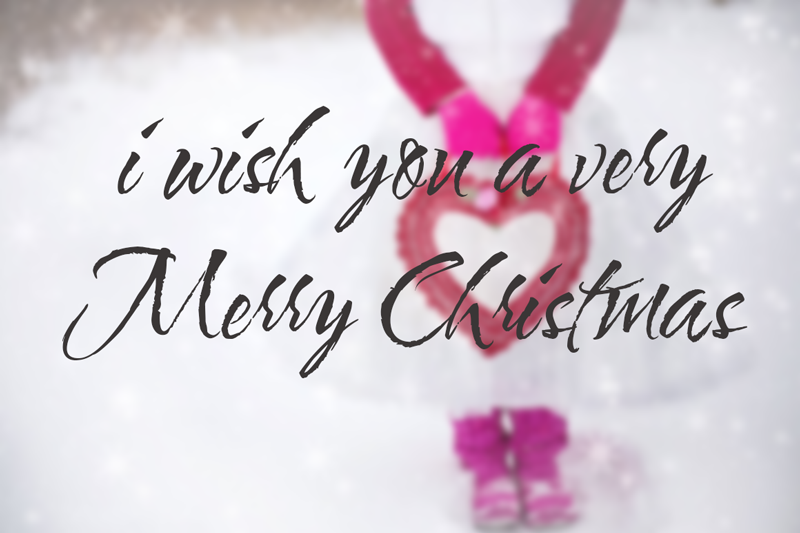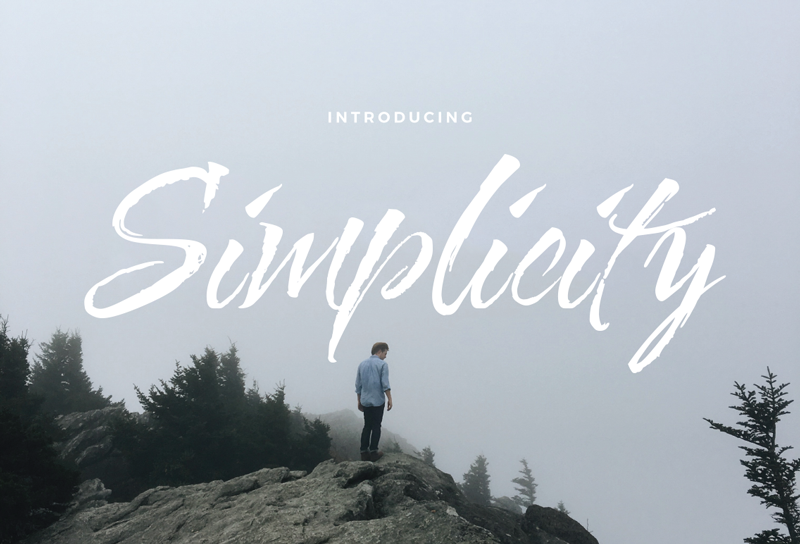
Simplicity Script
Simplicity Script Font
Simplicity was created a while ago by one of our designer. This script font can be best used for branding, wedding invitations, logo design, business cards, blog posts or even posters or postcards – whatever comes to your mind!